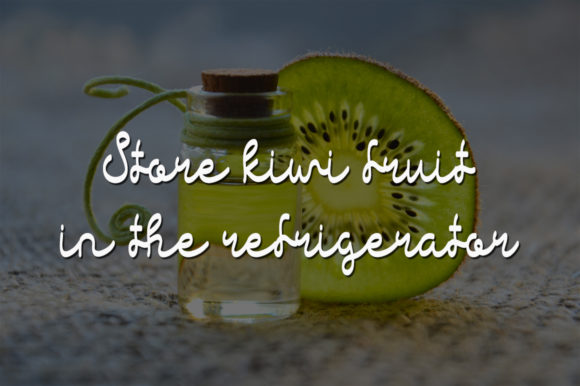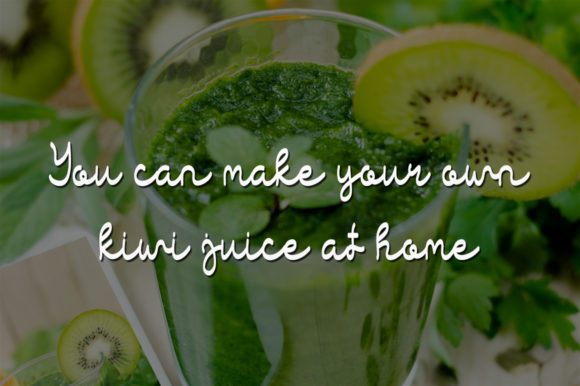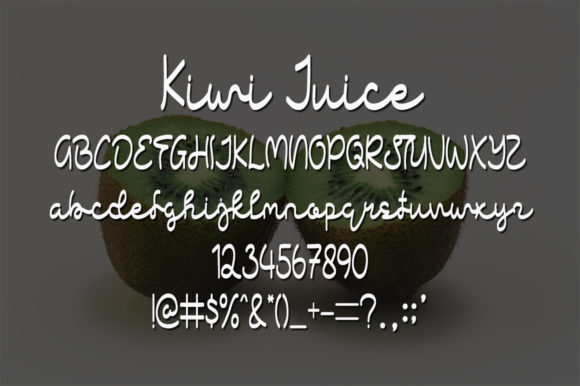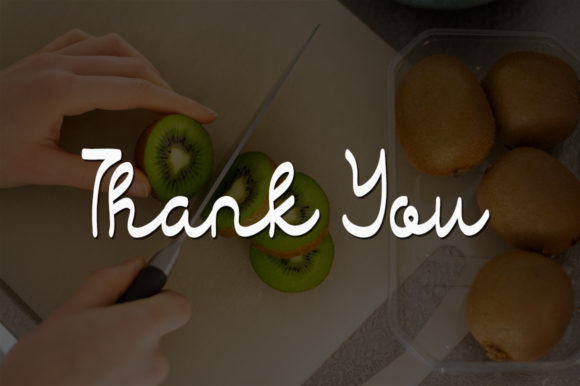
Introduction to Kiwi Juice Font
Kiwi Juice is a sweet and cursive handwritten font.
This gentle font will look gorgeous on a variety of design ideas It will add a joyful and romantic touch to each of your projects.